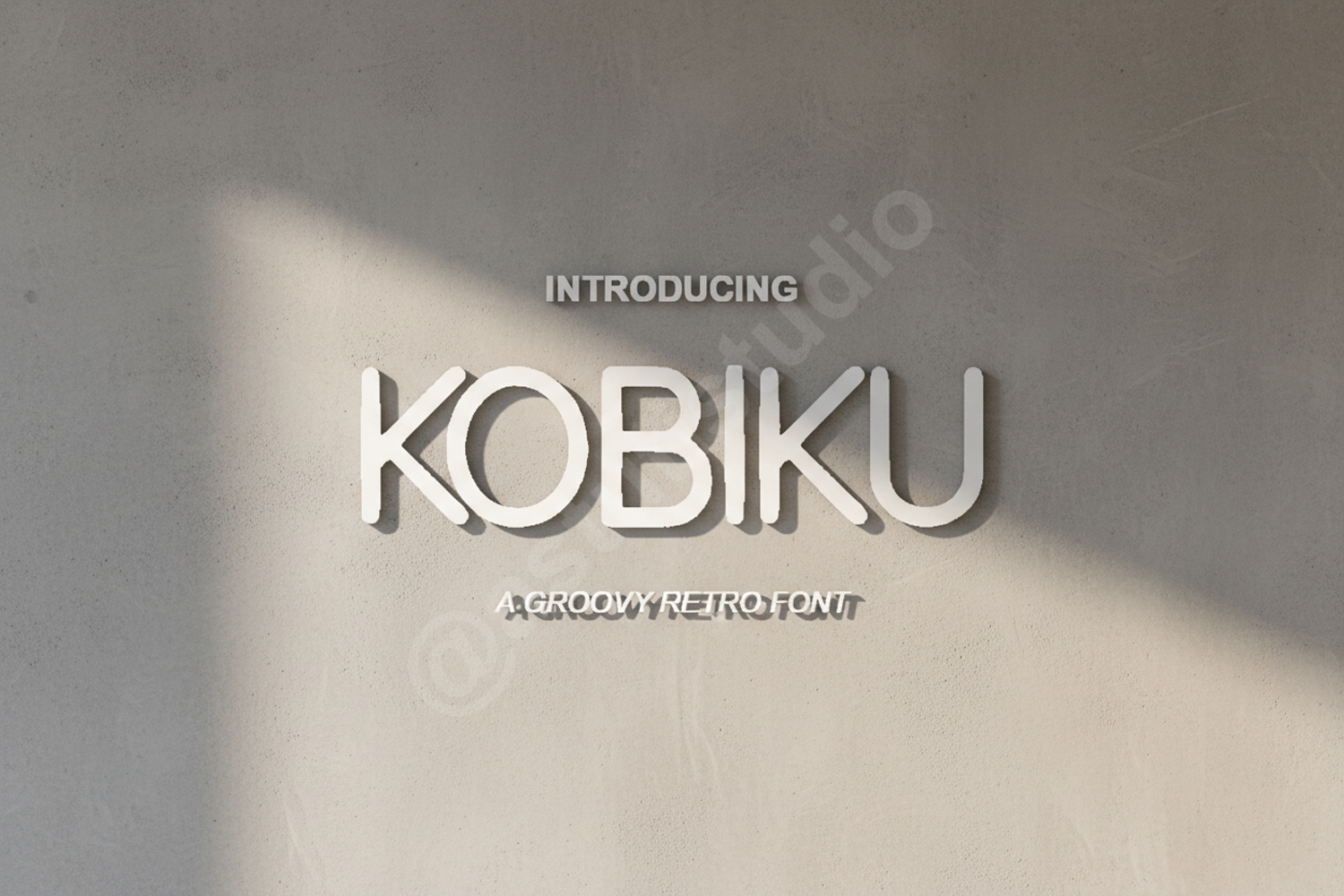
Kobiku - Modern Elegant Serif Font
Kobiku
Kobiku is a premium serif typeface meticulously crafted to bring a touch of class and modern sophistication to your creative projects. With its clean lines and unique character shapes, Kobiku balances contemporary aesthetics with timeless elegance, making it an essential tool for professional designers and hobbyists alike.
- Standard Ligatures and Stylistic Alternates
- Branding and Identity: Create memorable logos and distinctive brand marks.
- Wedding Stationery: Add a sophisticated and romantic touch to invitations and menus.
- Editorial Design: Perfect for magazine headers, stylish layouts, and book covers.
- Social Media: Elevate your digital presence with high-end, eye-catching typography.
- Product Packaging: Enhance the shelf appeal of luxury goods and artisanal products.